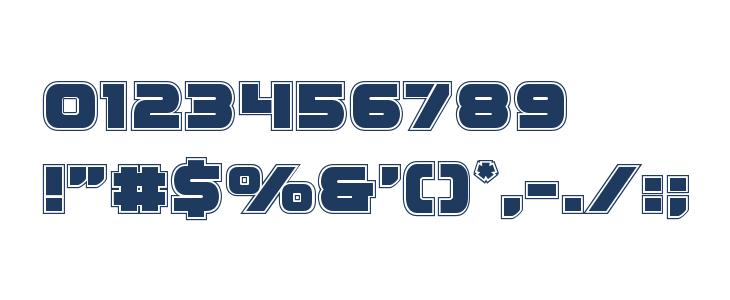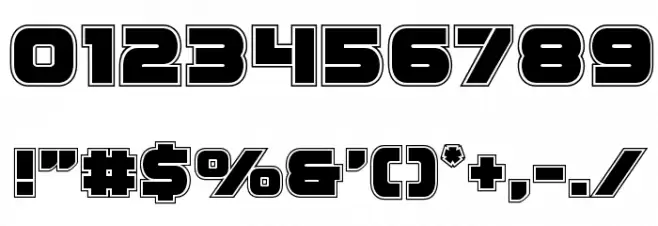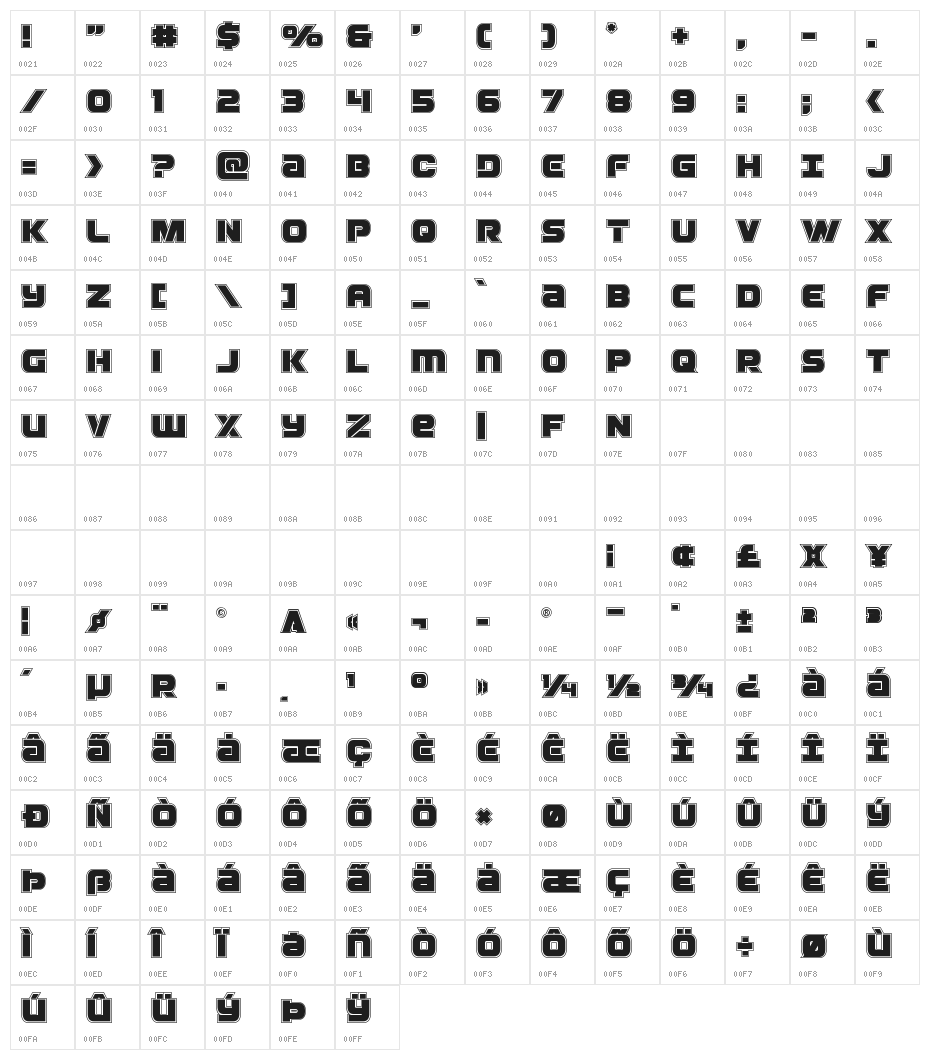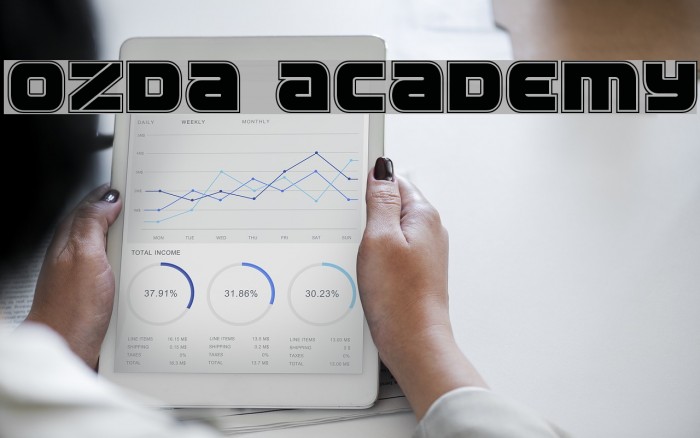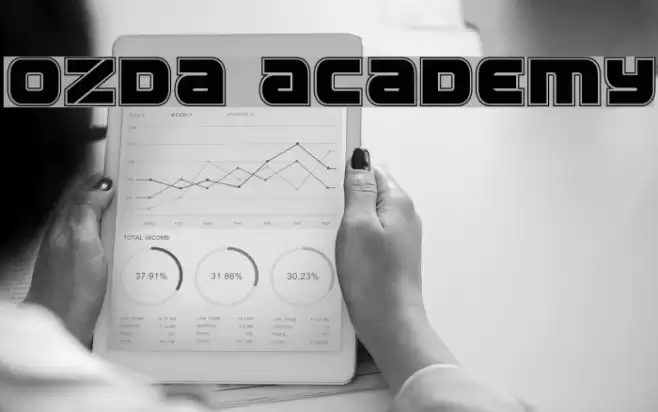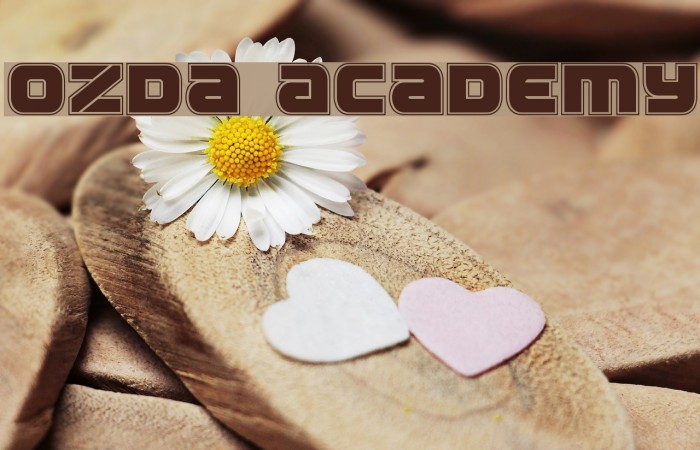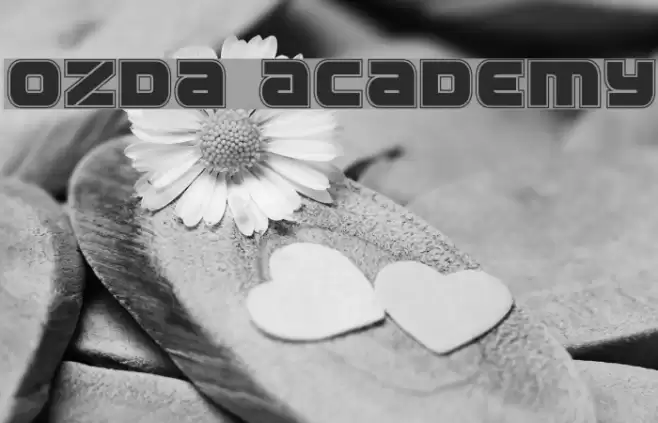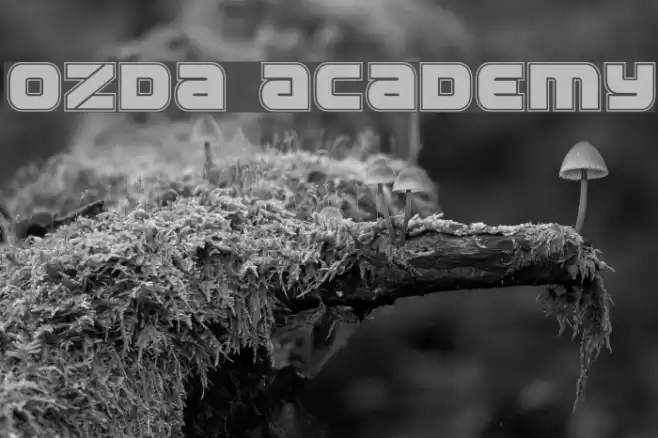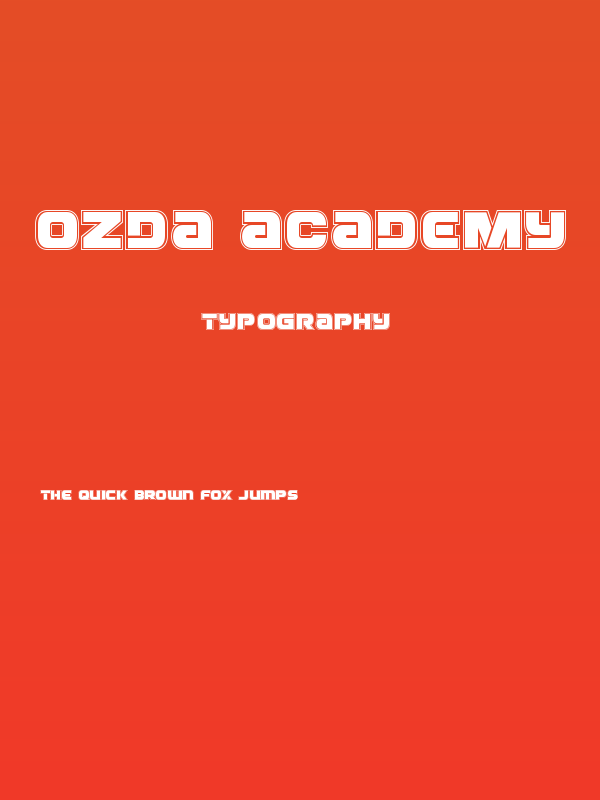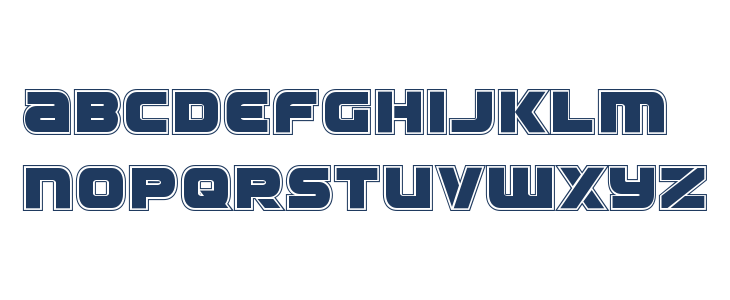
Ozda Academy Font
Ozda Academy Description
This font features a bold, geometric design with a strong presence. The characters are outlined, creating a striking double-layer effect that enhances its visual impact. The uppercase and lowercase letters maintain a consistent style, with sharp angles and a blocky structure. Numbers and special characters follow the same design principles, ensuring uniformity across all glyphs. The font's boldness and unique outline make it ideal for attention-grabbing headlines and titles.
| Proposed Projects | Ideal for posters, logos, video game titles, and any project requiring a bold, modern aesthetic. |